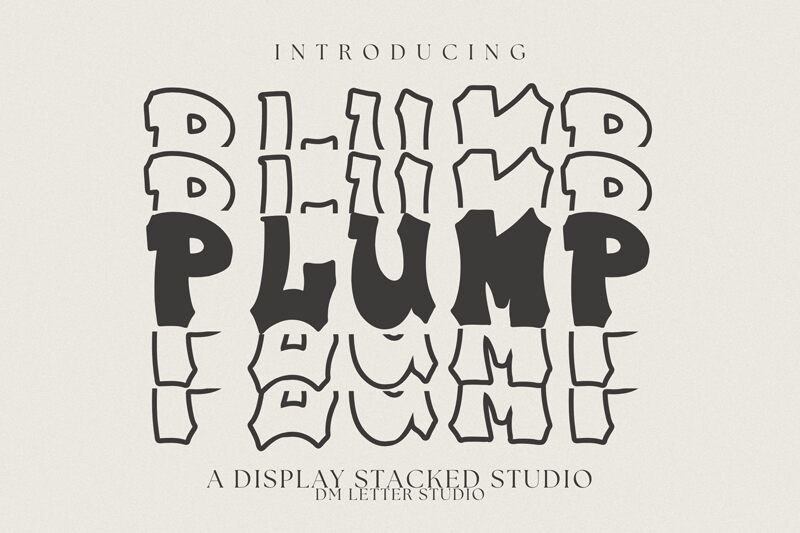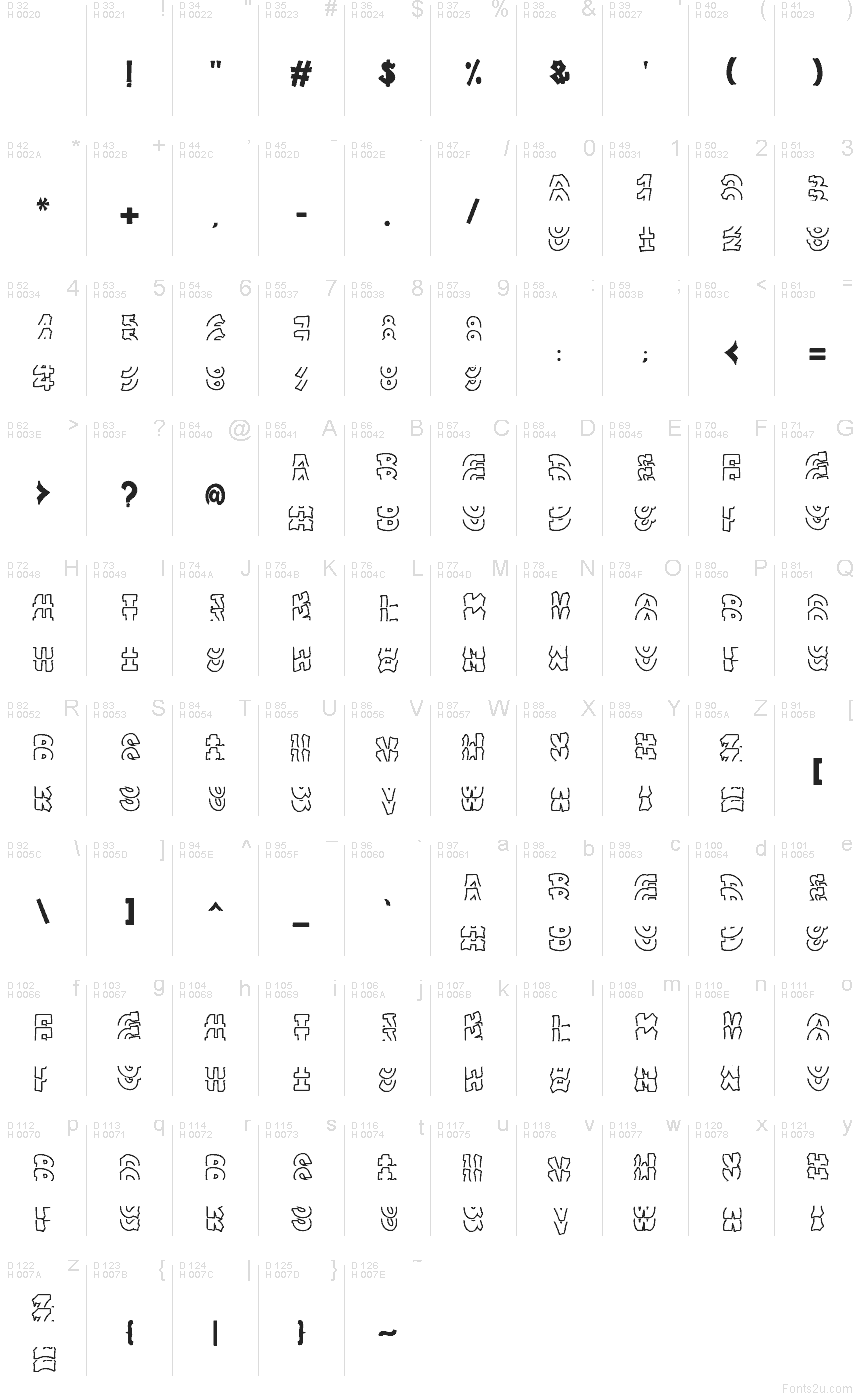
Plump Stacked Monogram
Plump Stacked Monogram font by DM Letter Studio - Dimas Prasetyo is a free decorative display typeface that turns chunky outlines into bold, stackable initials. Part of the playful Plump family, its puffy, slightly wobbly forms feel like hand-drawn bubble letters, giving every composition a soft, friendly edge. The hollow shapes invite color fills, textures, or patterns, so each monogram can feel custom-made without extra illustration work.
Using Plump Stacked Monogram, you can build eye-catching logo marks, stickers, kids’ merch, YouTube titles, social avatars, badges, and tote bag prints that pop from a distance. The stacked structure keeps short words and initials tight and compact, great for circular layouts or small spaces. This free font pairs easily with a clean geometric sans for copy; set Plump Stacked Monogram larger and let it act as the playful hero.